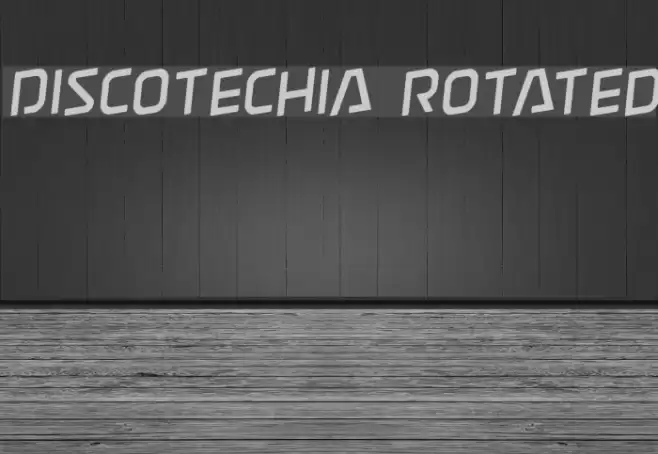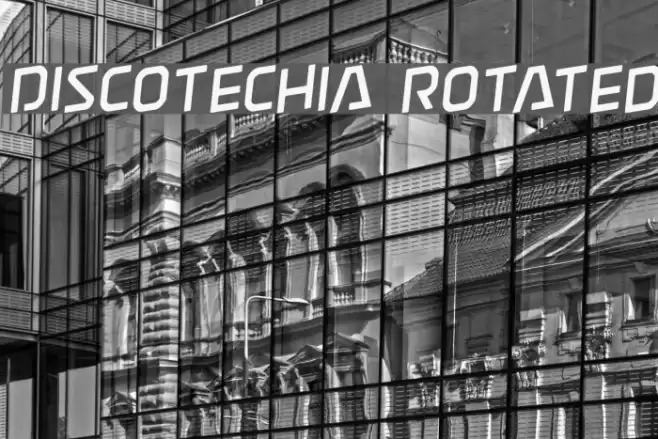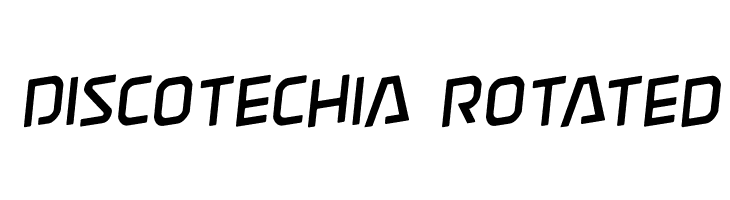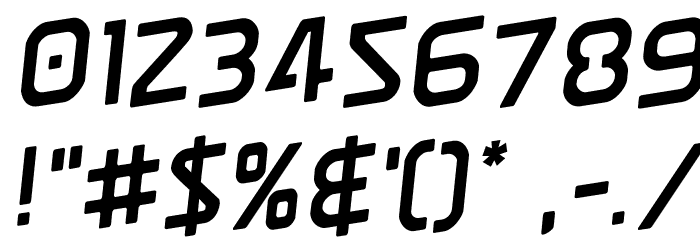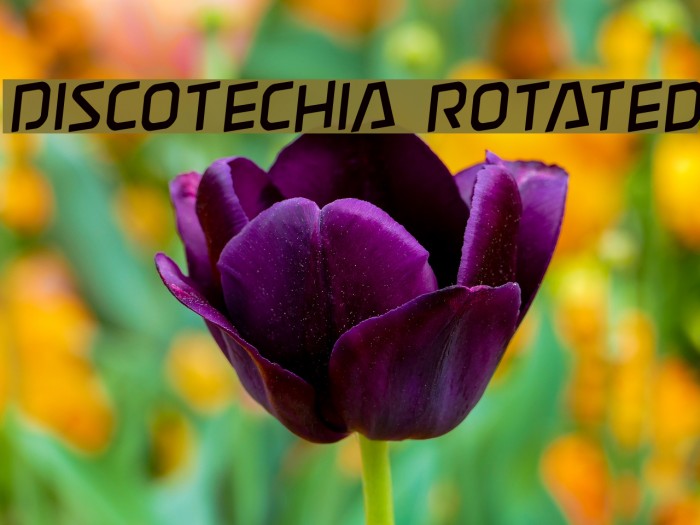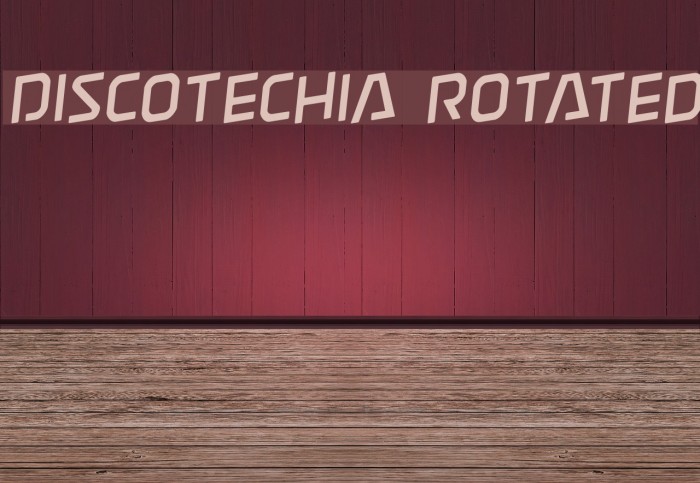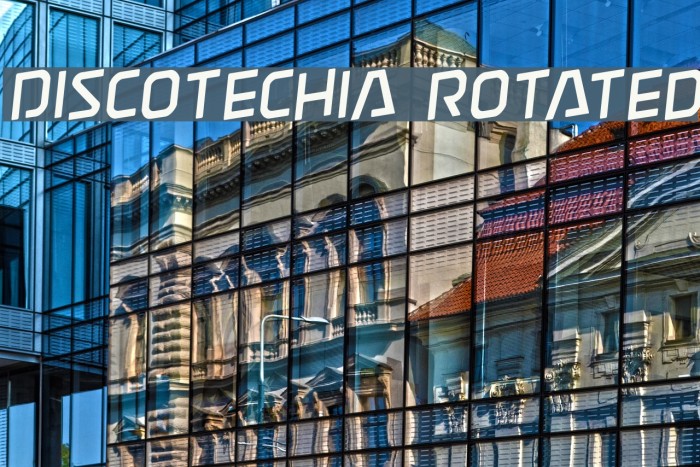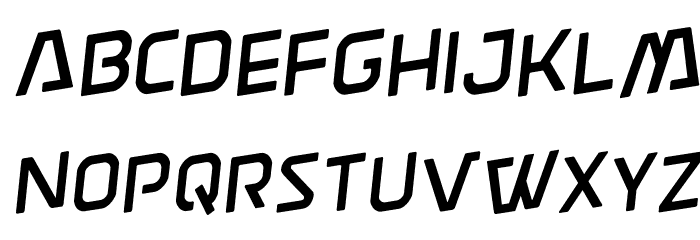
Discotechia Rotated Font
Discotechia Rotated Description
This font features a dynamic and energetic style with a futuristic flair. The characters are slightly slanted, giving a sense of motion and speed. The strokes are bold and consistent, with a geometric influence that adds a modern touch. The uppercase and lowercase letters maintain a uniform width, contributing to a cohesive appearance. Numbers and special characters follow the same design principles, ensuring versatility across various applications. The font's unique style makes it suitable for projects that require a contemporary and lively aesthetic.
A dynamic, slanted font with a futuristic and geometric style from Uncategorized fonts.
- Proposed Projects: Ideal for branding, posters, music album covers, and digital media that require a modern and energetic look.